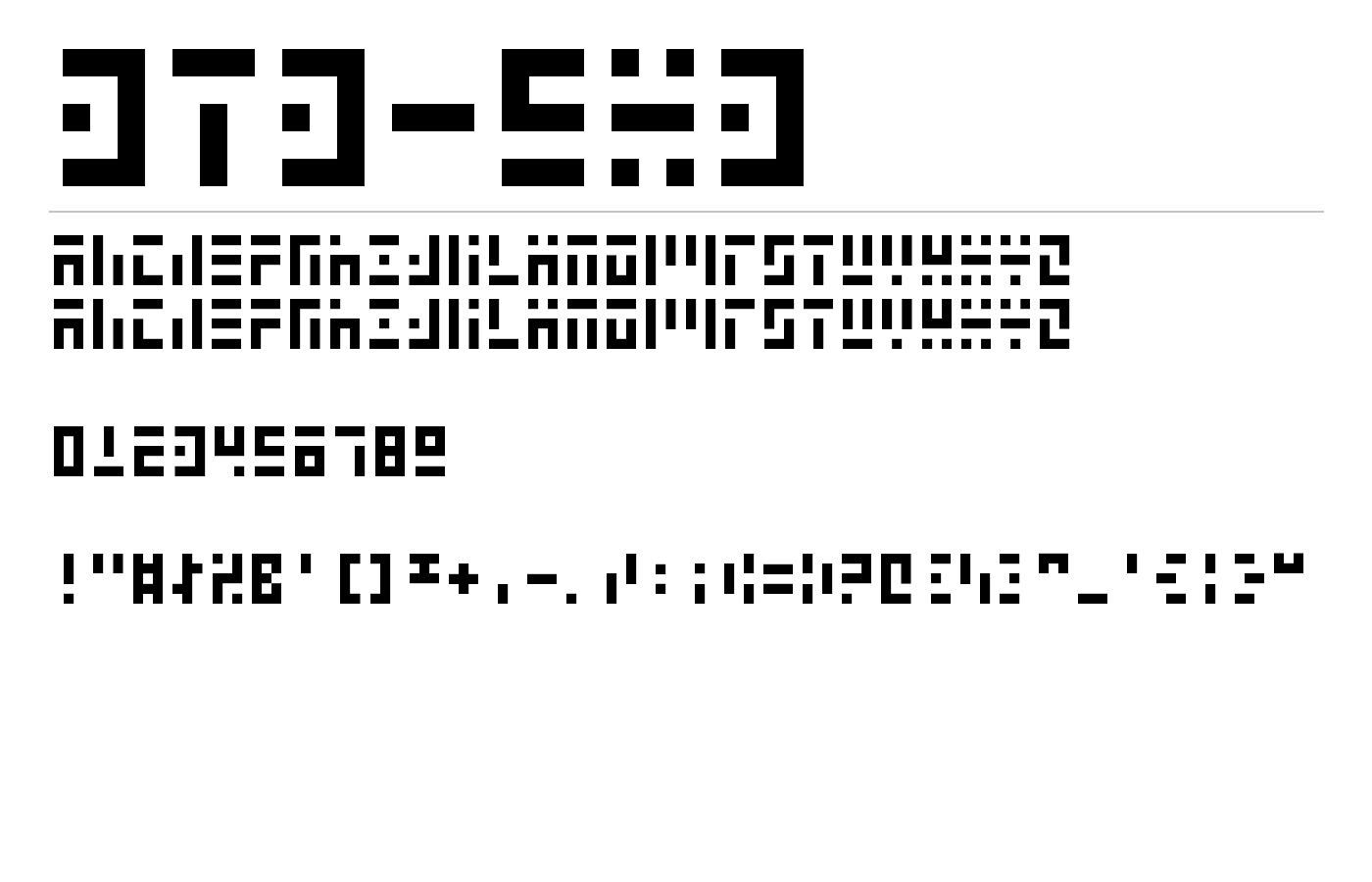
3t3-5x3 is a bold, geometric sans serif font with a distinctive pixelated, modular design that evokes a retro digital or arcade feel. Its blocky, square shapes and consistent stroke weight create a strong, tech-inspired aesthetic ideal for futuristic or gaming-themed projects. This font works best for display use such as logos, posters, and digital interfaces where an eye-catching, structured style is desired.
3t3-5x3 Font